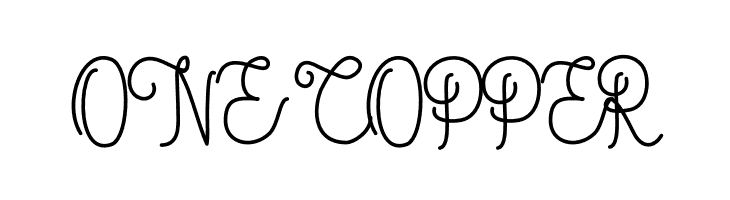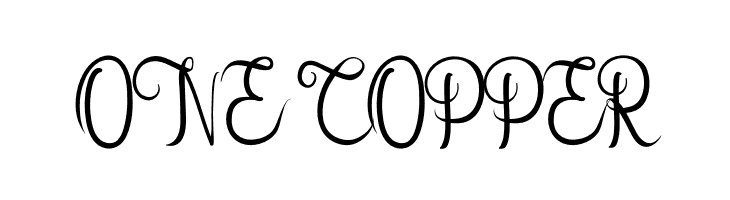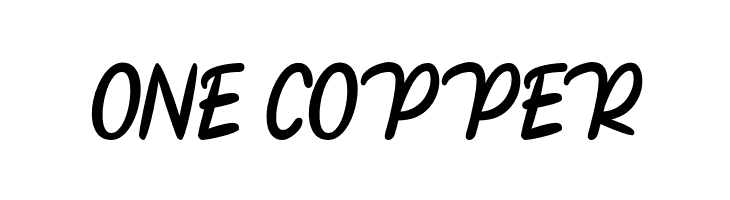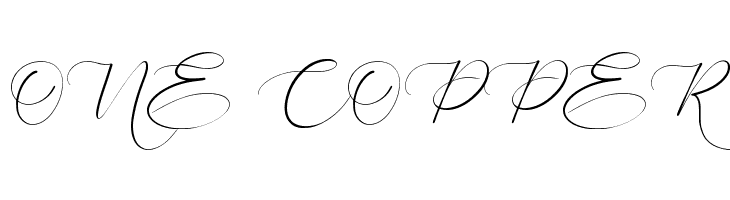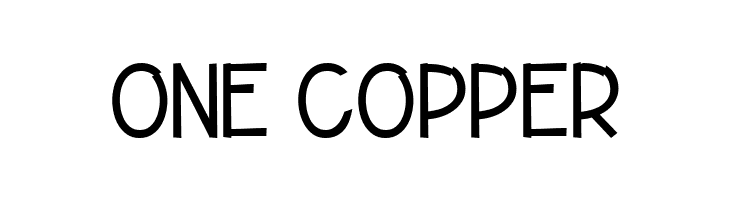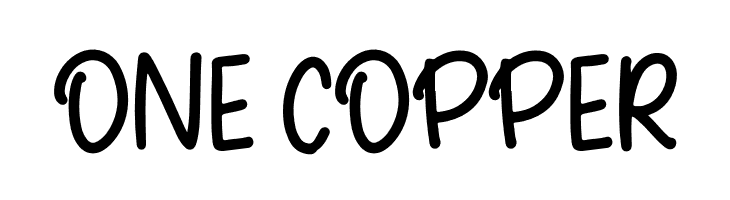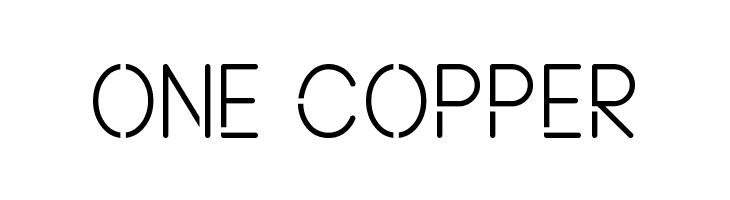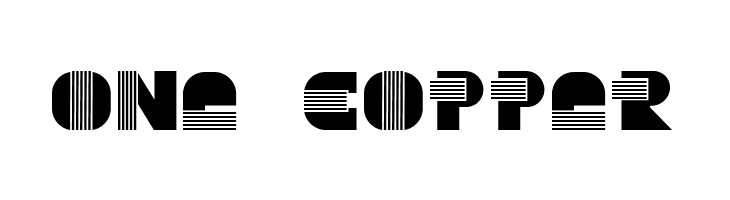
A bold, geometric font with sharp angles and a blocky design.
A modern, geometric font with rounded edges and uniform stroke width.
A modern, geometric font with unique cut-out styling and clean lines.
A modern, geometric font with rounded edges and unique character designs.
A modern, geometric font with clean lines and unique cut-out elements.
A sleek, modern italic font with consistent stroke width and elegant design.
A modern, double-line stroke font with a geometric and hollow design.
A modern, italic font with consistent stroke width and smooth, rounded characters.
A modern, double-line outline font with geometric shapes and clean lines.
A playful, casual handwritten font with rounded, irregular letterforms.
A bold, hand-painted style font with dynamic strokes and artistic flair.
An elegant script font with flowing, interconnected letters and refined flourishes.
A bold, geometric font with a modern, striped design.
A playful, hand-drawn script font with whimsical loops and elegant flow.
A whimsical and elegant script font with flowing, interconnected strokes.
A delicate monoline script font with elegant, flowing strokes and decorative uppercase letters.
A playful, bold monoline font with a cursive, handwritten style.
A playful monoline font with a hand-drawn, whimsical style.
A playful, bold monoline font with a cursive, handwritten style.
A playful, hand-drawn font with tall, narrow characters and a whimsical style.
A playful and whimsical font with elegant swirls and loops.
A bold, elegant script font with smooth, flowing curves.
A bold, expressive handwritten font with fluid strokes and playful curves.
A bold, geometric font ideal for modern headlines and logos.
An elegant, flowing cursive script with intricate loops and smooth connections.
A graceful and elegant cursive script font with a modern touch.
A dynamic and flowing script font with elegant curves and smooth strokes.
A modern, clean font with a playful touch and consistent stroke width.
A modern sans-serif font with a clean and playful style.
A whimsical, heart-themed decorative font with a playful, script-like style.
A bold, artistic serif font with a blend of classic and modern elements.
A dynamic, handwritten-style font with expressive curves and varying stroke widths.
A playful and bold font with a hand-drawn, whimsical style.
A playful, handwritten-style font with a dynamic and quirky appearance.
A dynamic, cursive script font with expressive, fluid strokes.